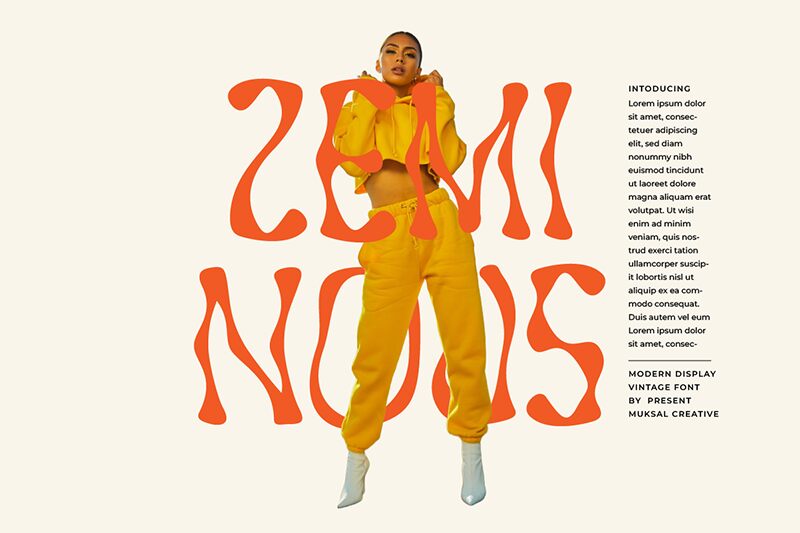
Zeminous font designed by Muksal Creative is a free font that combines a relaxed and organic flowing aesthetic with a modern-retro feel. It has a visually fluid and dynamic appearance, making it expressive and artistic. Zeminous draws from vintage inspirations but manages to balance a contemporary and fresh appeal.
The font would be a beautiful addition to various projects that explore unique display styles. Posters, magazine covers, book covers, greeting cards, branding, signage, and packaging design are all places where Zeminous can shine. Product designs, advertisements, social media content, and website designs are other platforms you can explore using the font.